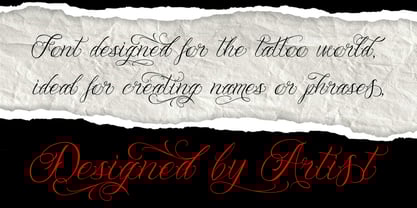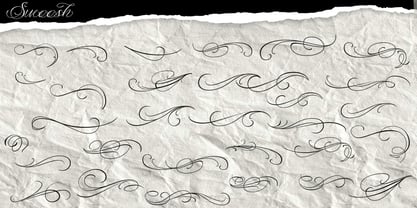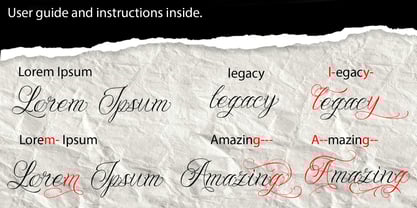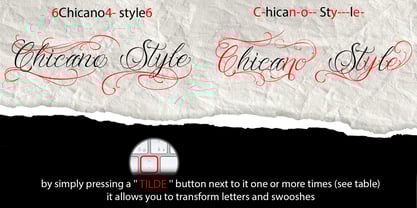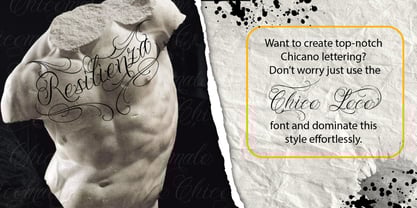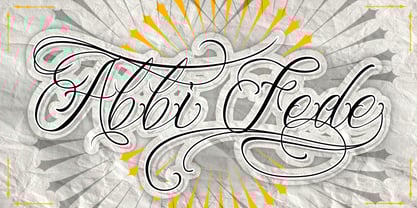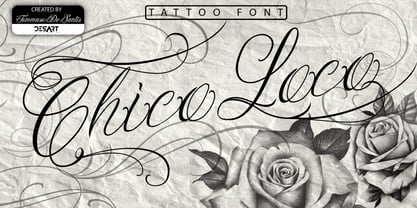
Chico Loco
by Desart studio
The Chico Loco Font Family was designed by Tommaso De Santis and published by Desart studio. Chico Loco contains 1 styles.
Chico Loco – Chicano Calligraphy Font for Tattoo Lettering
Chico Loco is a handcrafted calligraphic font inspired by the raw energy of Chicano tattoo art, barrio graffiti, and lowrider culture. Designed for tattoo artists and streetwear designers, this multilingual font lets you master a style steeped in history—with gritty details that scream authenticity.
-Key Features:
Tattoo-Ready Lettering: Irregular strokes and pressure contrasts mimic real hand-painted designs.
Special Ligatures & Swashes: Includes stylistic alternates for dynamic layouts (perfect for flash sheets or merch).
Multilingual Support: Covers English, Spanish, and full latin alphabet and common tattoo phrases.
disegned by TOMMASO DE SANTIS
Designers: Tommaso De Santis